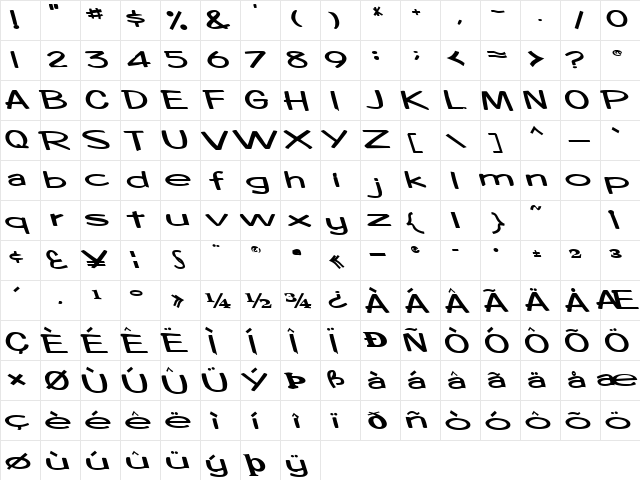
BoosterRocketLight83 Bold
Design Context for BoosterRocketLight83 Typeface
BoosterRocketLight83 is a composed and adaptable typeface that performs quietly and consistently across a wide range of design contexts. The heavy weight commands attention and anchors typographic hierarchies.